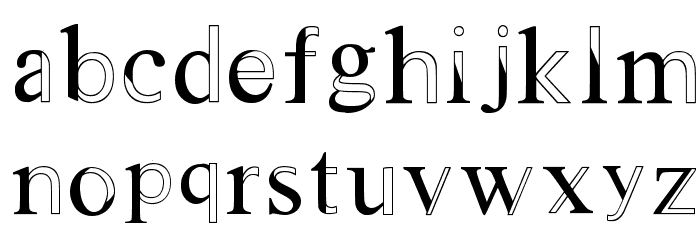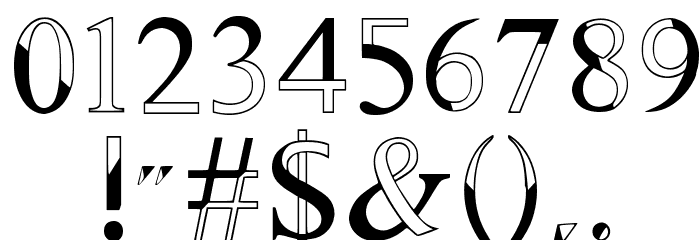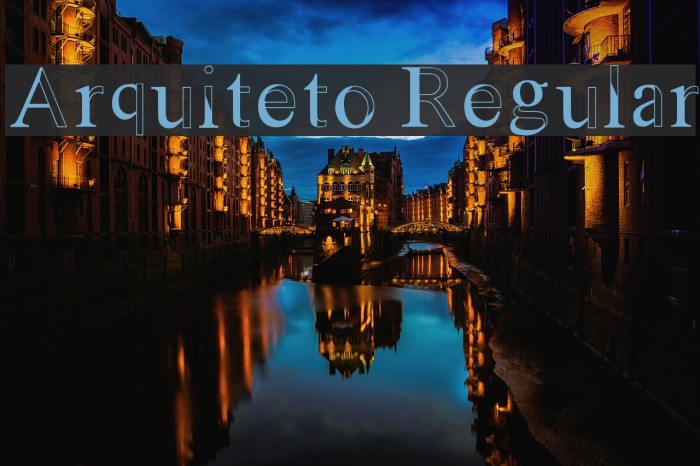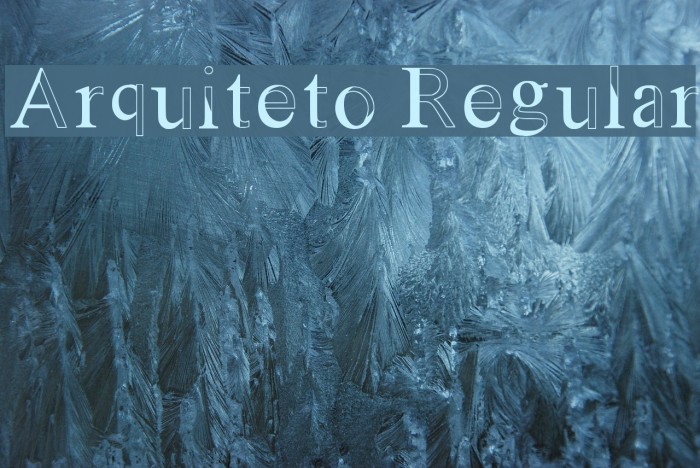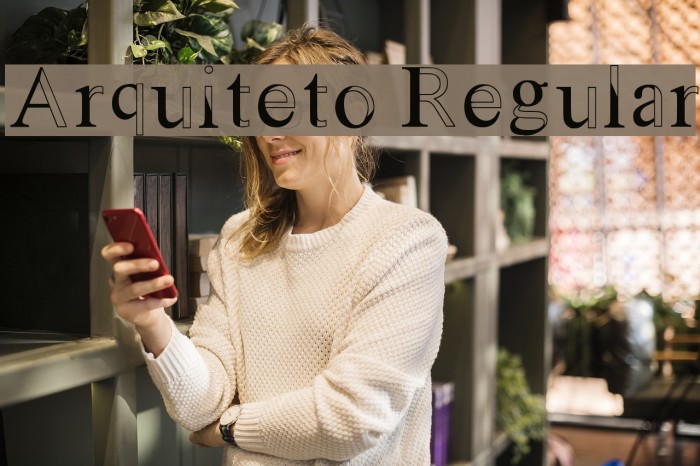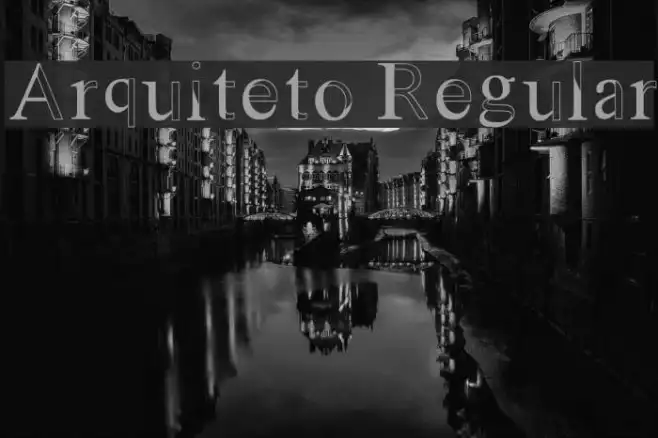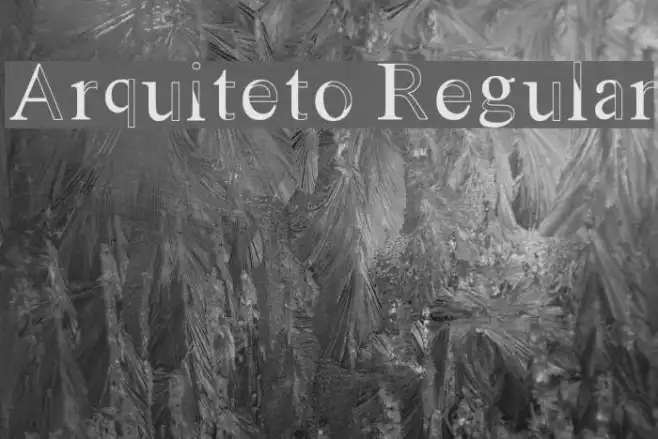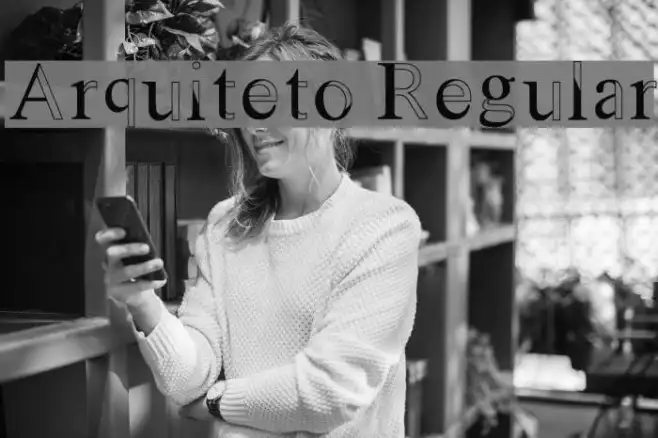
Arquiteto Regular Font
This font features a unique blend of modern and classic elements, characterized by its distinct cut-out style that creates a striking visual effect. The uppercase letters are bold and commanding, while the lowercase letters maintain a consistent style with slightly softer curves. The numerals are clear and easy to read, complementing the overall aesthetic. Special characters are designed with the same attention to detail, ensuring a cohesive look across all glyphs. This font's high contrast in stroke thickness adds to its dynamic appearance, making it suitable for a variety of design applications.
A modern, high-contrast font with a unique cut-out style.
- Proposed Projects: Ideal for branding, headlines, posters, and editorial design.